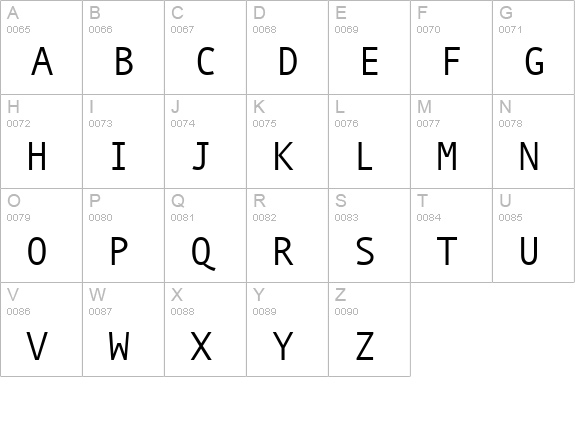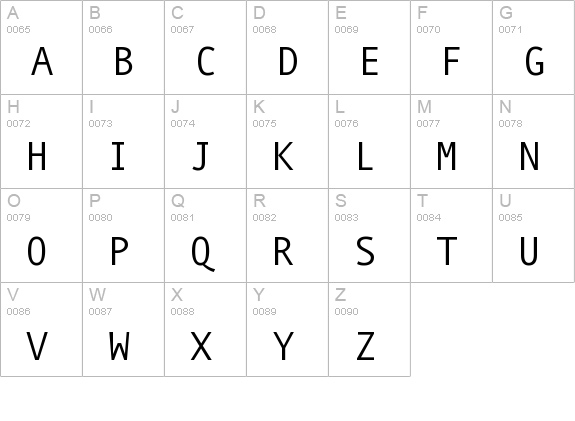
QuickType Mono Font Details
Introducing QuickType Mono, a sleek and modern monospaced font that is perfect for tech enthusiasts, programmers, and designers alike. With its clean lines and consistent spacing, QuickType Mono provides the ideal balance between readability and aesthetic appeal. This versatile font is designed to enhance the legibility of code, making it easier to navigate and understand complex programming languages. Its uniform character width ensures precise alignment, allowing for seamless integration into any project or application. What sets QuickType Mono apart is its exceptional clarity, making it a breeze to distinguish between characters and symbols. Whether you're working on a software development project, designing a website, or simply need a font that exudes professionalism, QuickType Mono delivers in every aspect. But that's not all – QuickType Mono is not only high-quality, but it's also free for download at FontsMarket.com. This means that you can enjoy all the benefits of this remarkable font without any cost. Take advantage of this opportunity to elevate your typography game and ensure your work stands out from the crowd. So why wait? Don't miss out on the opportunity to enhance your projects with the elegance and functionality of QuickType Mono. Download it for free today at FontsMarket.com and experience the difference it can make in your design endeavors.